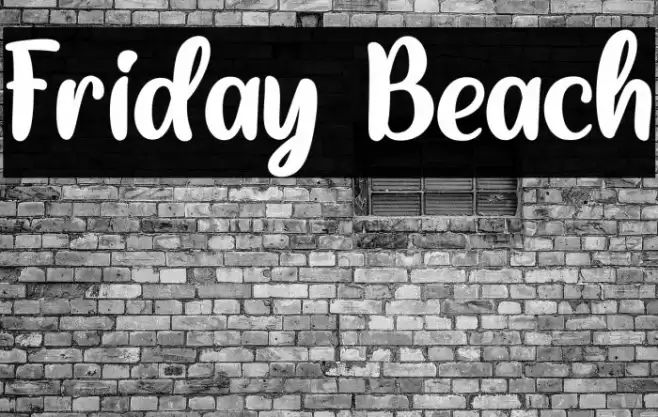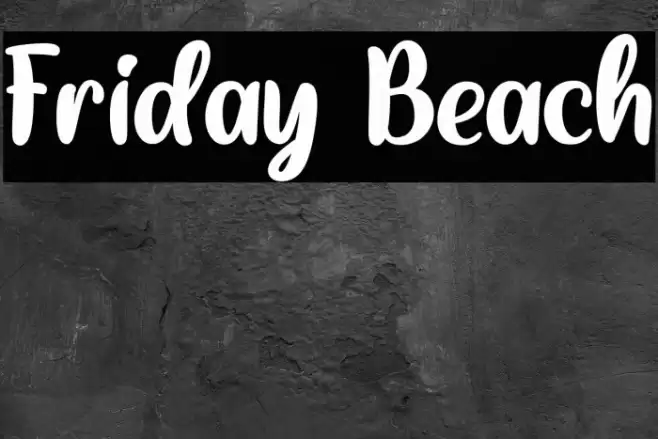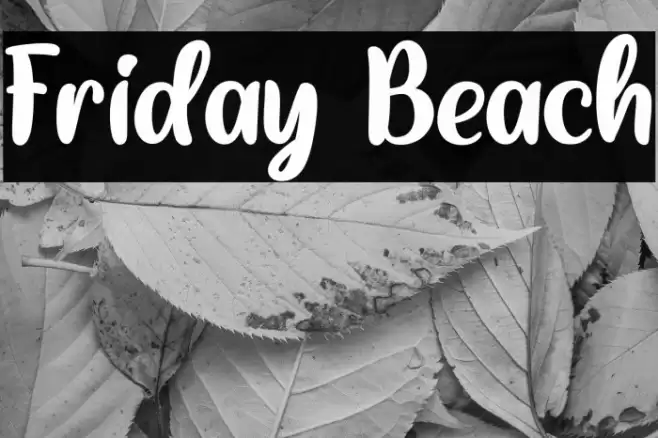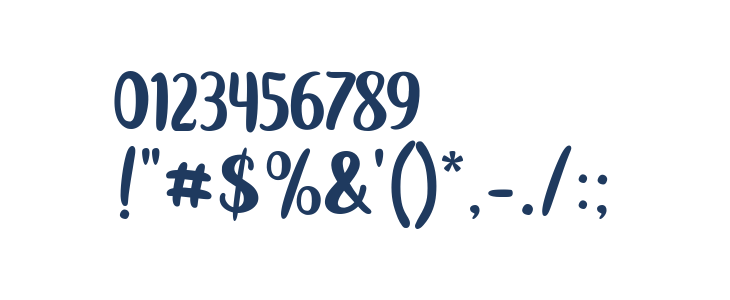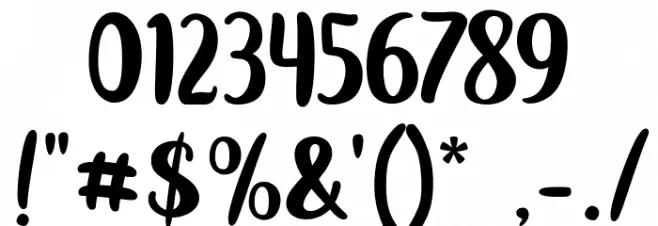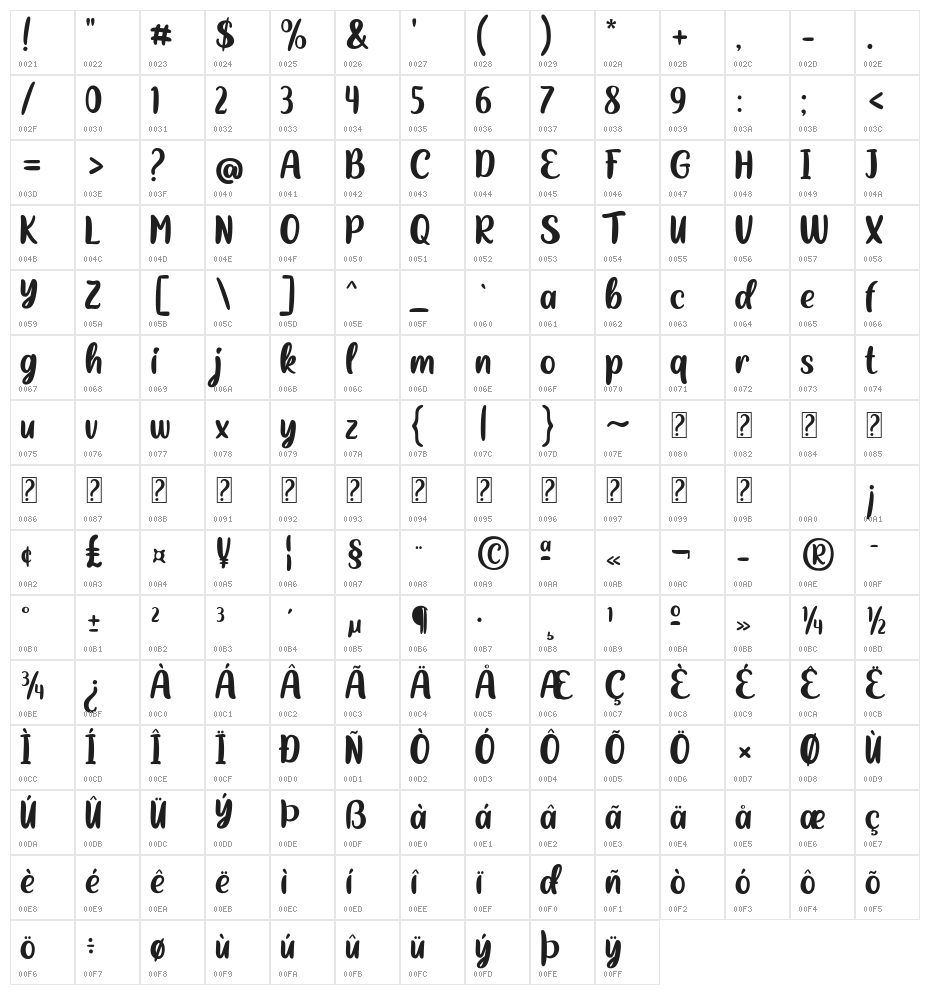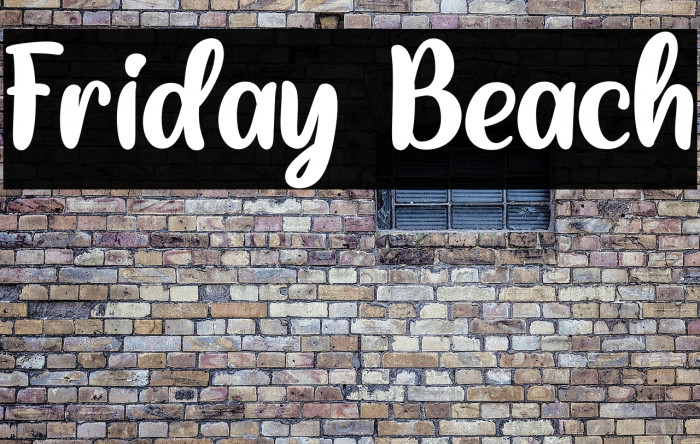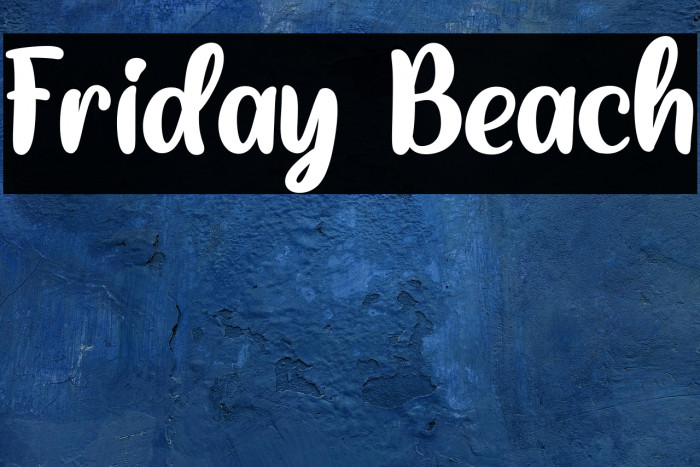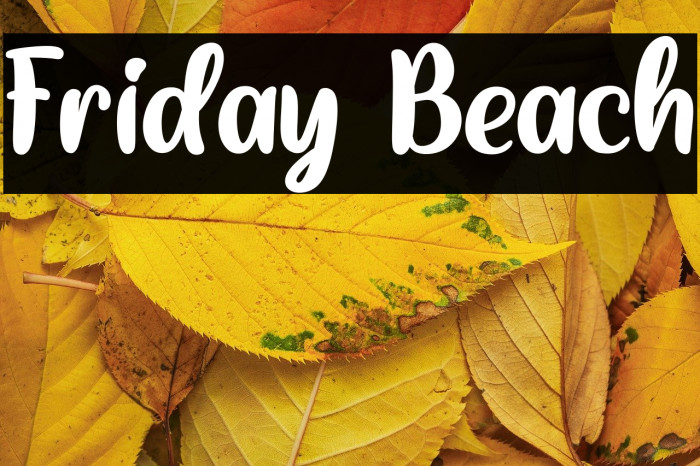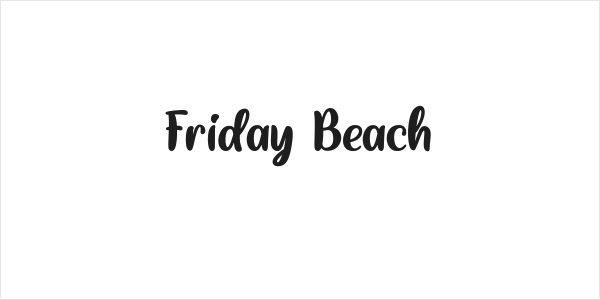
Friday Beach Font
Friday Beach Description
This font features a playful and bold script style, characterized by its smooth, flowing curves and thick strokes. The uppercase letters are slightly larger and more pronounced, while the lowercase letters maintain a consistent, rounded appearance. The numbers and special characters follow the same bold and lively design, making the font suitable for eye-catching displays. The overall look is casual yet impactful, with a touch of whimsy that adds personality to any text. Its design is reminiscent of handwritten lettering, offering a friendly and approachable vibe.
A bold, playful script font with smooth curves and thick strokes from Regular fonts.